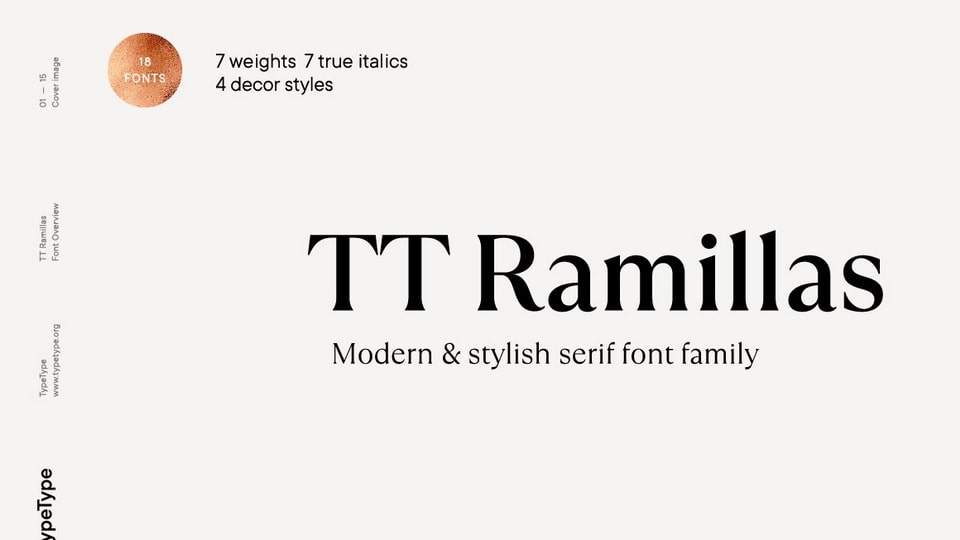
Download TT Ramillas is a fully reconsidered high contrast transitional serif, which is perfectly adapted to modern realities and requirements. The visual features of TT Ramillas are high contrast, small flared serifs, variable slope of ovals, open aperture of signs, contrasting thin nodules and no drops.